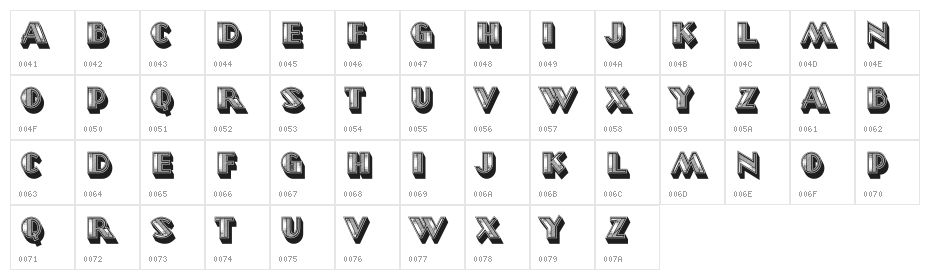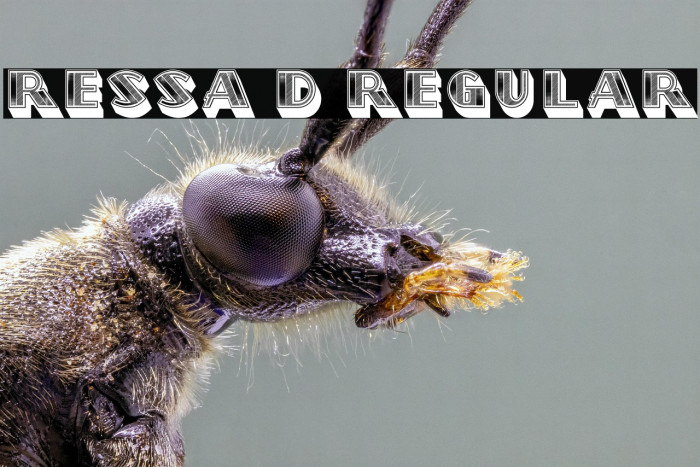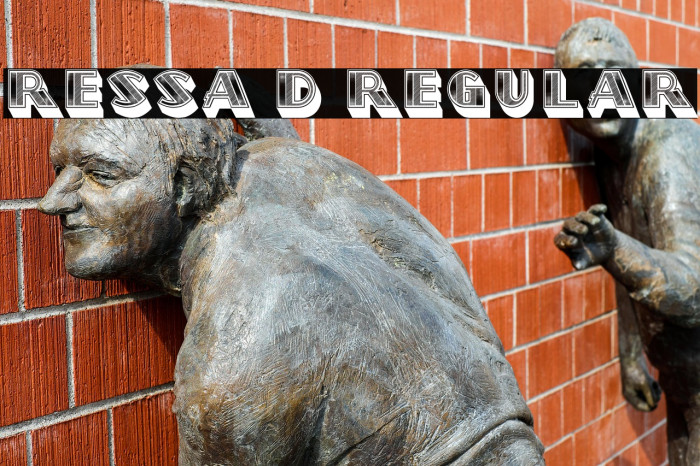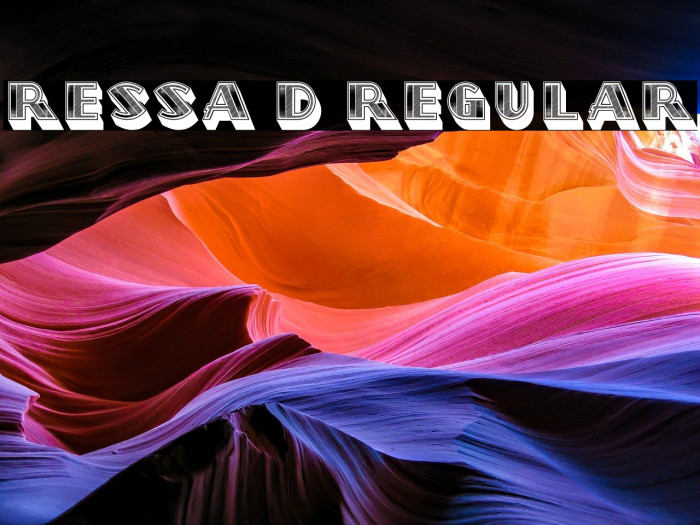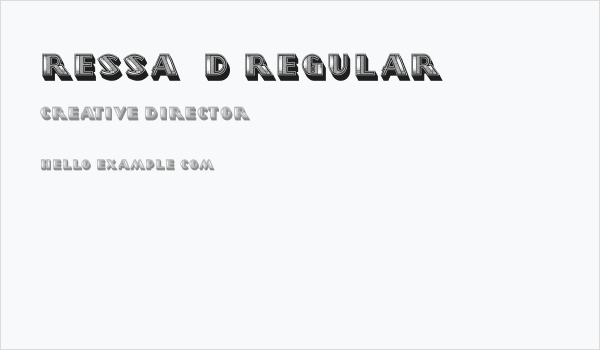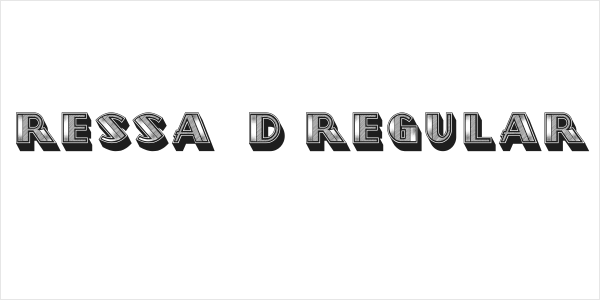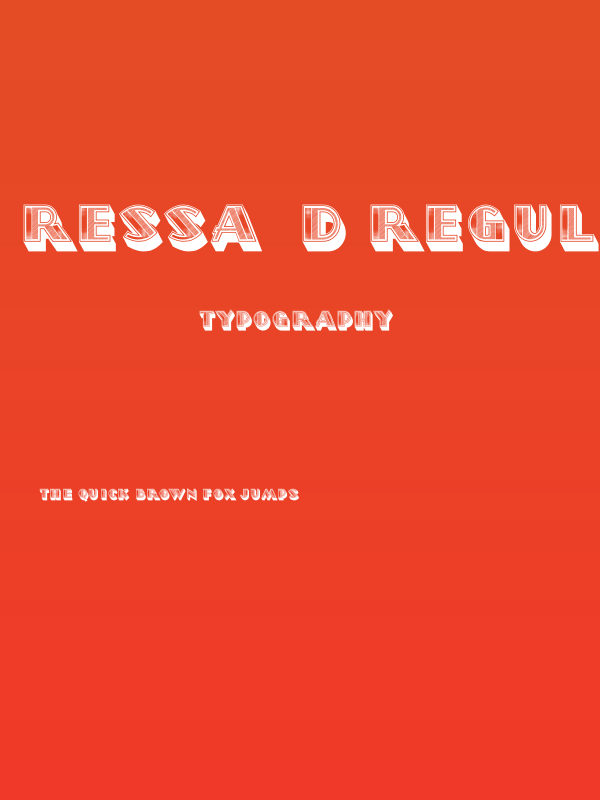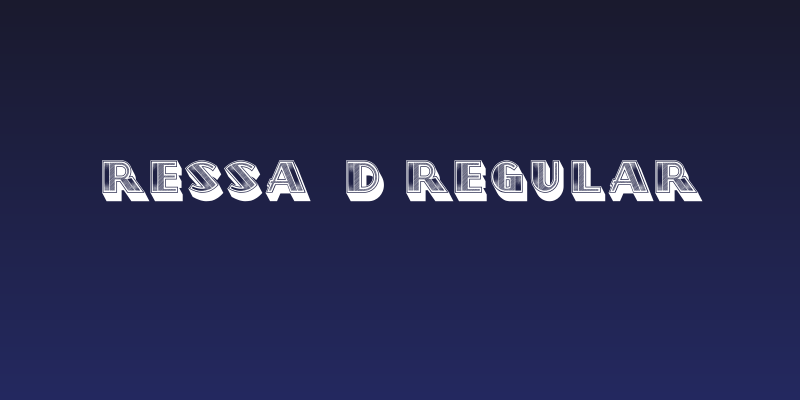
Ressa 3D Regular Font
Ressa 3D Regular Description
This font features a bold, three-dimensional design with a strong visual impact. The letters are capitalized and exhibit a shadow effect that gives them depth and a sense of solidity. The strokes are thick and consistent, creating a robust appearance. The font's style is reminiscent of vintage signage or retro posters, with a decorative flair that makes it stand out. The intricate detailing within each letter adds to its unique character, making it suitable for projects that require a touch of nostalgia or a bold statement.
| Proposed Projects | Ideal for retro-themed posters, vintage signage, branding, and any project requiring a bold, eye-catching typeface. |